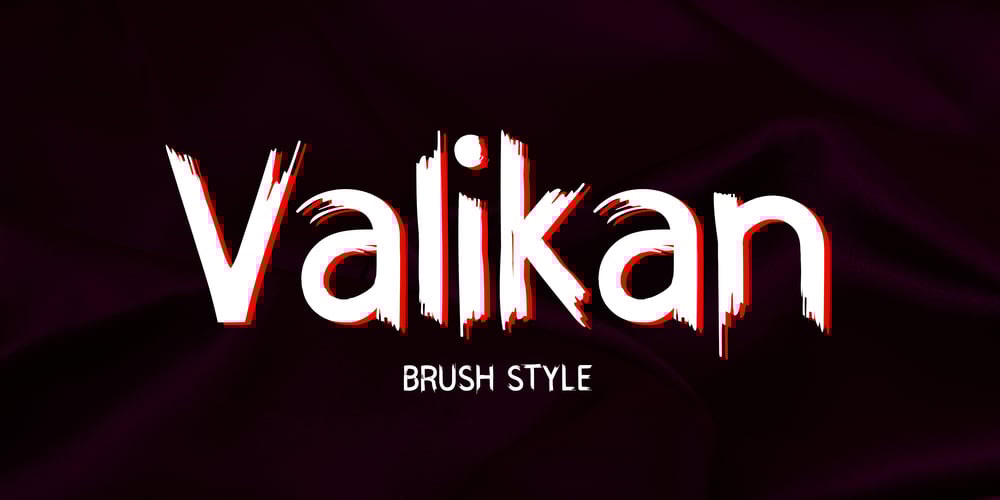
Valikan
Valikan font
Valikan Font Family was designed by Muhammad Ansari and published by Kaidosan. Valikan contains 1 styles and family package options. The Valikan font is a simple, neat handwritten font with a rough smooth styled character. With smooth, rough strokes giving this font a distinctive style, Valikan is perfect for book covers and horror films as well as for branding projects, horror and haunted themed poster designs, and because this font comes with a neat brush, this font is also suitable for design any background